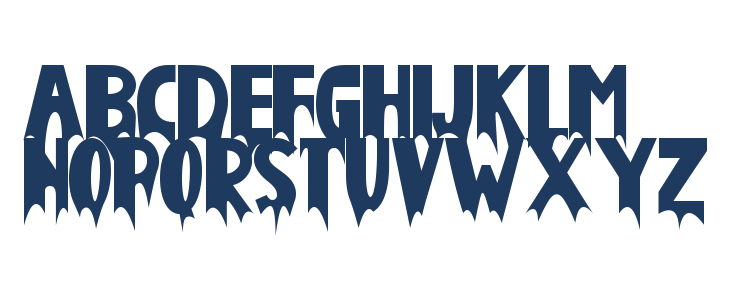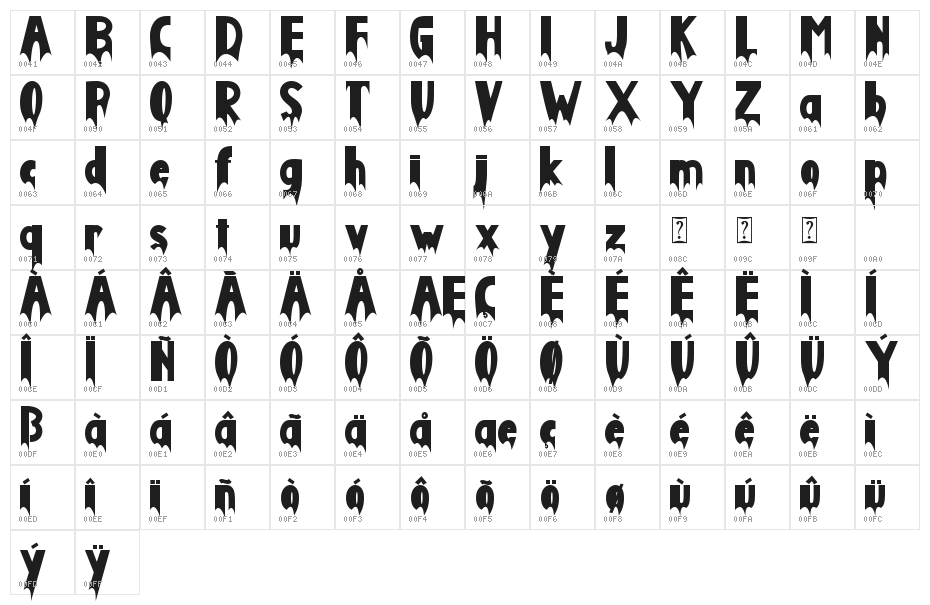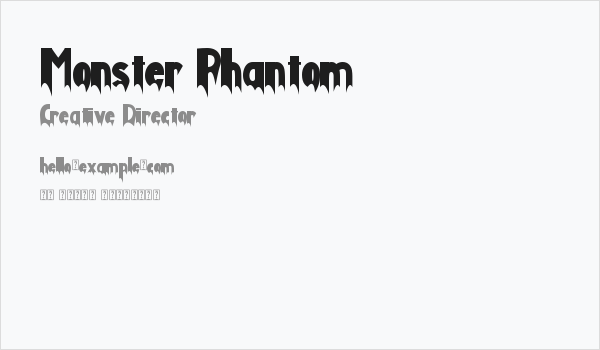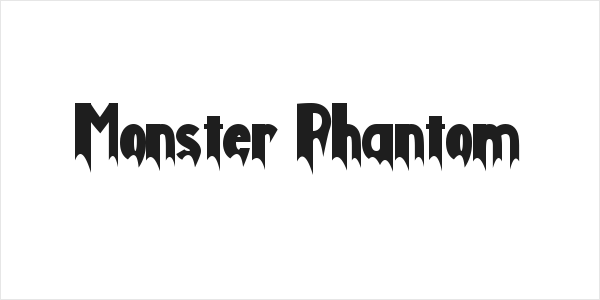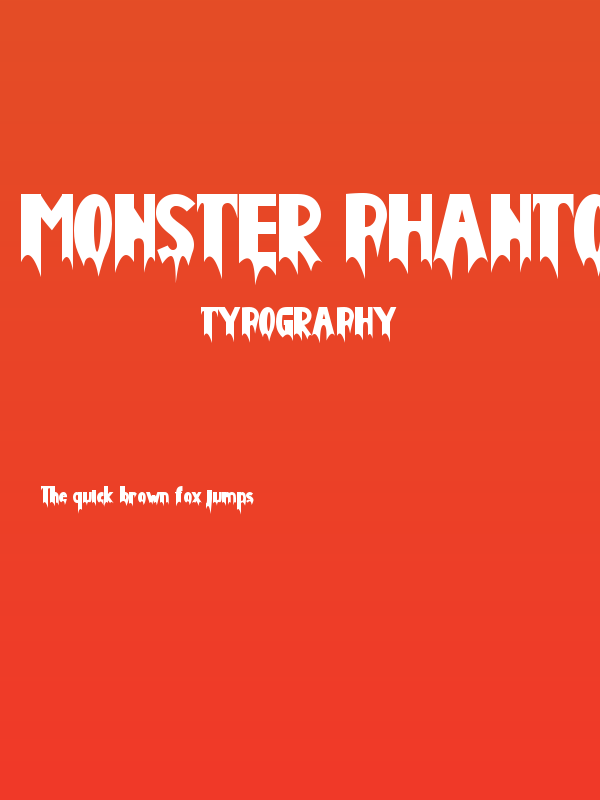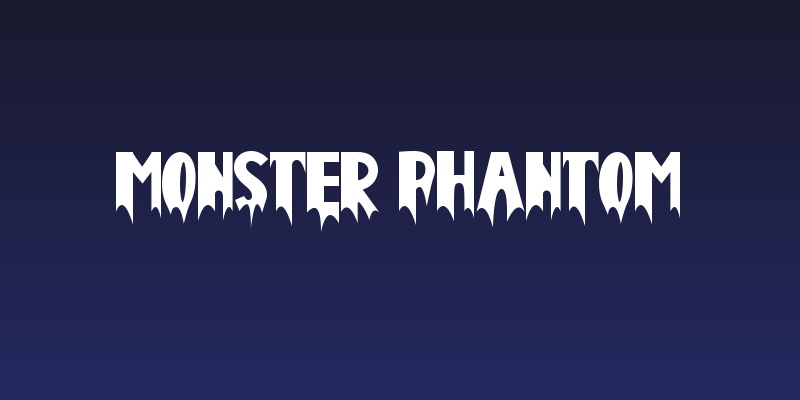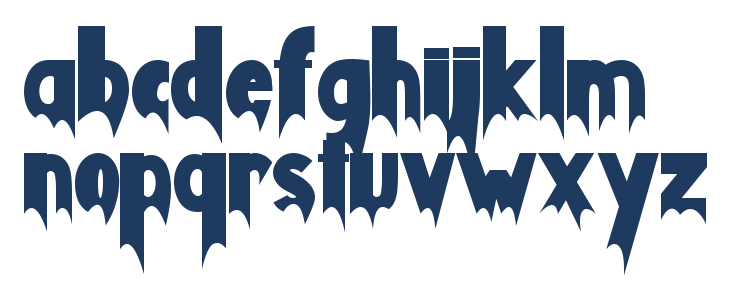
Monster Phantom Font
Monster Phantom Description
A bold, decorative display typeface with sharp, pointed descenders and dramatic, jagged edges, evoking a spooky or monstrous theme. The letterforms are geometric and blocky, with consistent stroke weight and high visual impact.
| Overall Style | Decorative, Spooky, Thematic |
| Use Case | Headlines, Posters, Logos, Event Flyers |
| Proposed Projects | Halloween posters, horror movie titles, haunted house signage, themed party invitations, comic book covers. |